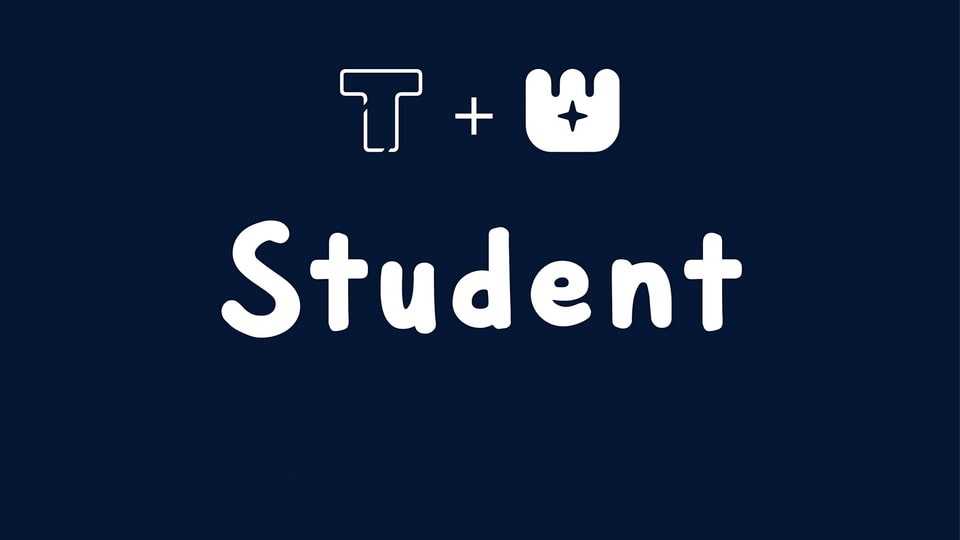
Download LT Student font, this handwritten typeface has the potential to give any project a warm, whimsical feel. The design is perfect for projects that seek to attract younger demographics.